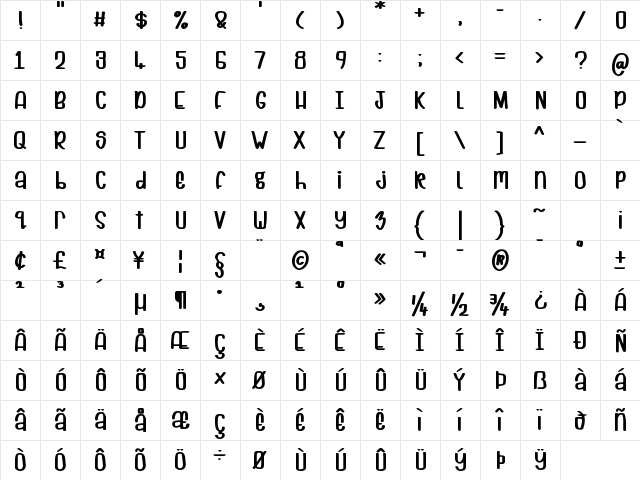
Cuppycake Regular
| Designer | Amber Nest |
Design Context for Cuppycake Typeface
Cuppycake offers clean, dependable letterforms without strong stylistic allegiance, making it a practical choice for designers who need flexibility.